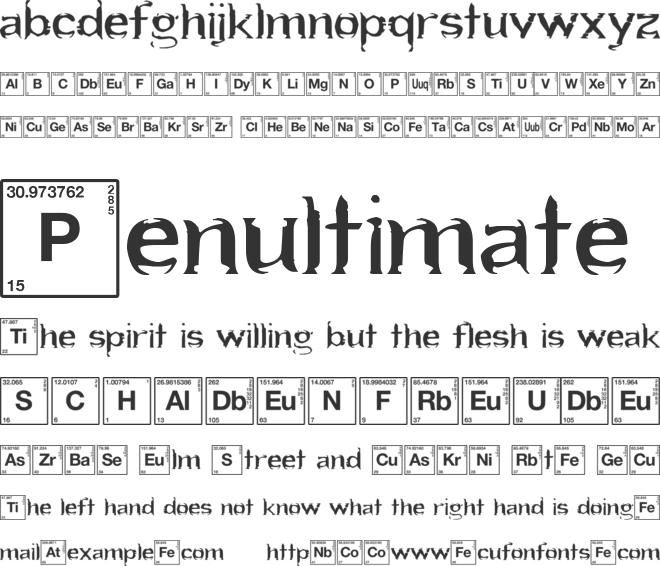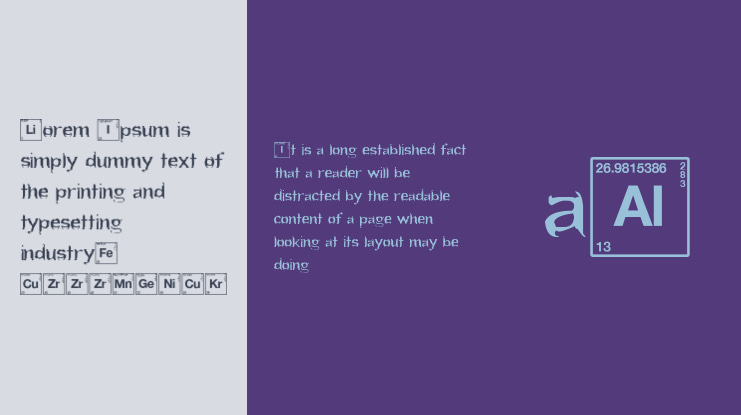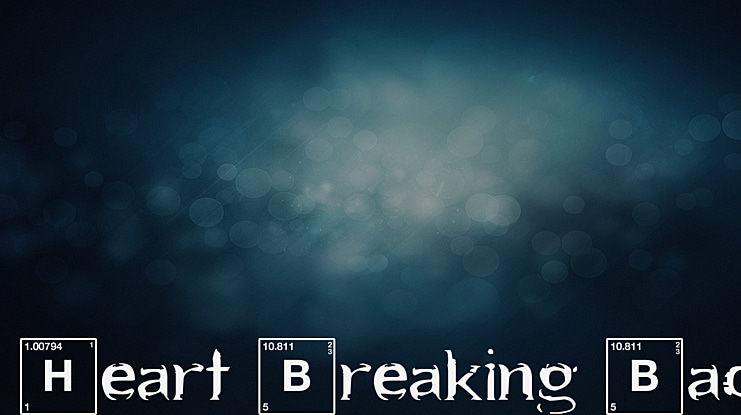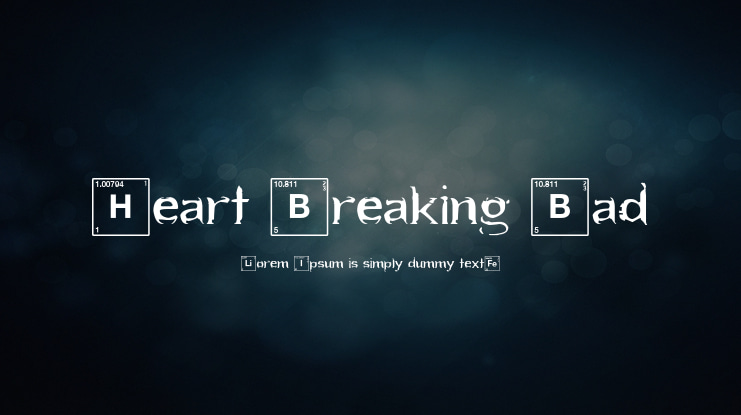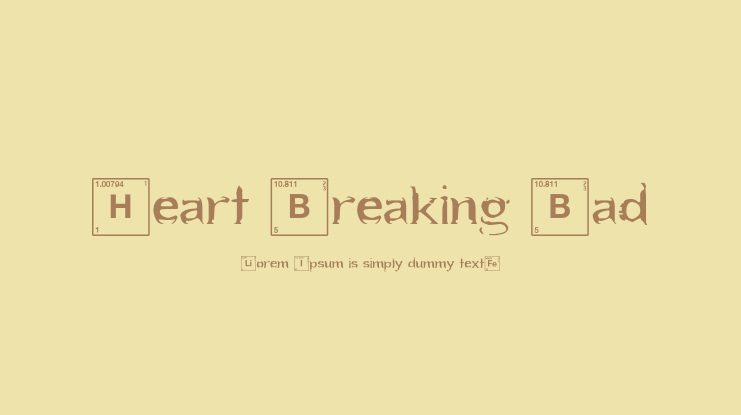
Heart Breaking Bad Font
Inspired by the Breaking Bad logo. Font contains full lower-case a-z as well as every element of the periodic table for all your chemical and Breaking Bad needs.
Created by Allison James.